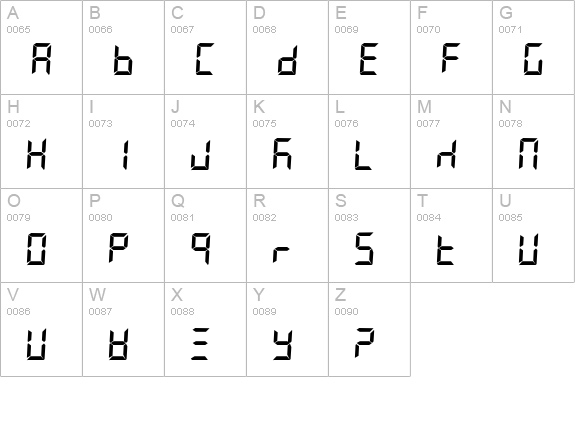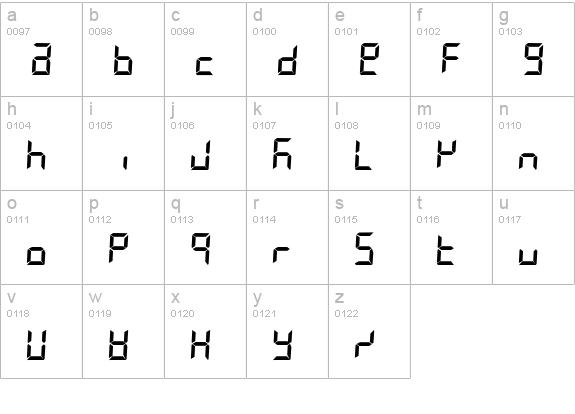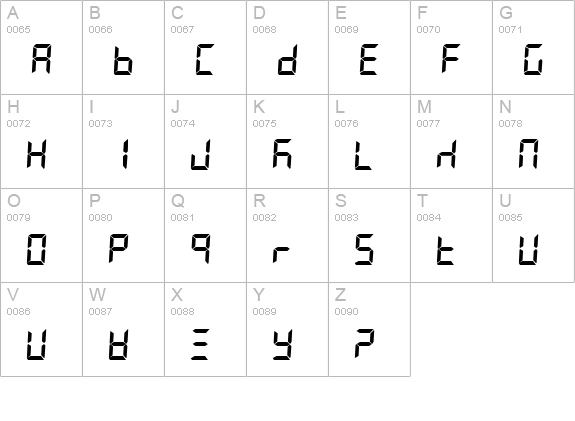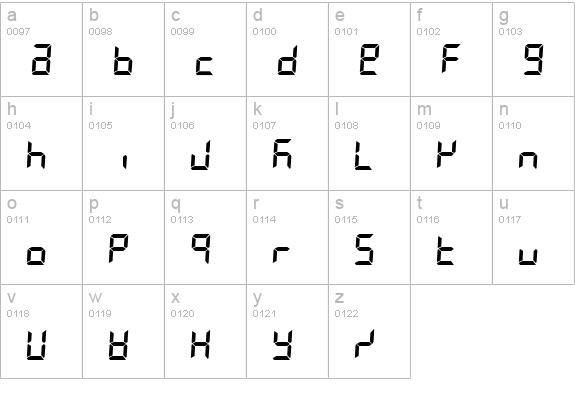
Segment7 Font Details
Introducing Segment7, a visually striking and modern font that is sure to make a bold statement in any design project. With its clean lines and sleek geometry, Segment7 instantly captivates the eye and adds a touch of sophistication to any layout. This versatile font is perfect for a variety of design applications, whether you need to create eye-catching headlines, stylish logos, or captivating posters. Its unique and distinctive design ensures that your messages will be seen and remembered. One of the best things about Segment7 is that it is completely free! That's right, this incredible font is freely available to download at FontsMarket.com, making it accessible to designers of all levels. Now you can add a touch of elegance to your designs without breaking the bank. Segment7's sleek and modern aesthetic is enhanced by its attention to detail. Each character is meticulously crafted, ensuring that every letter, number, and symbol is perfectly balanced and visually pleasing. The result is a font that exudes professionalism and sophistication. Whether you're designing for print or digital media, Segment7 is a font that will elevate your work to new heights. Its versatility and unique design make it suitable for a wide range of projects, from branding and marketing materials to website designs and social media graphics. So why wait? Download Segment7 for free today at FontsMarket.com and unlock a world of design possibilities. With its bold and modern style, this font is sure to impress and leave a lasting impression on your audience. Elevate your designs and stand out from the crowd with Segment7.